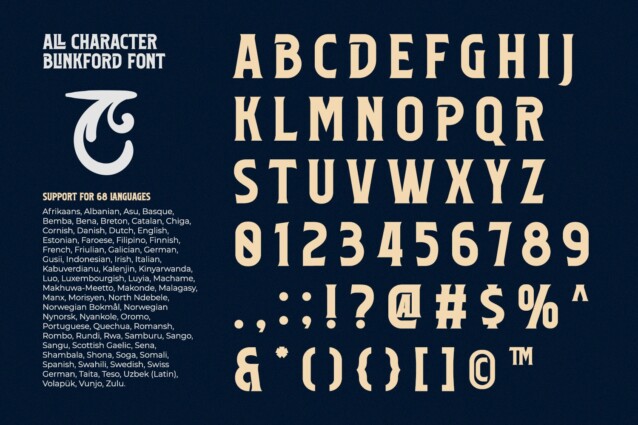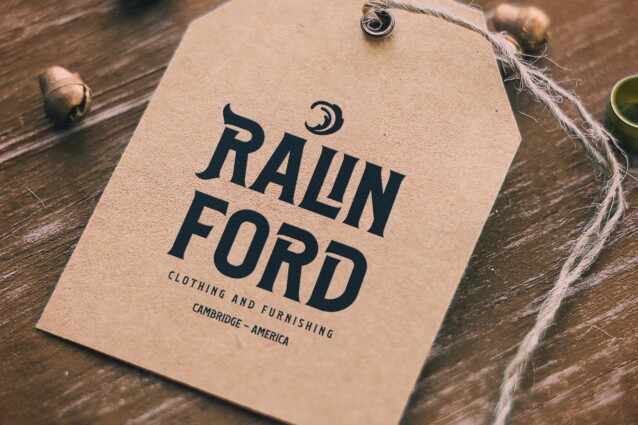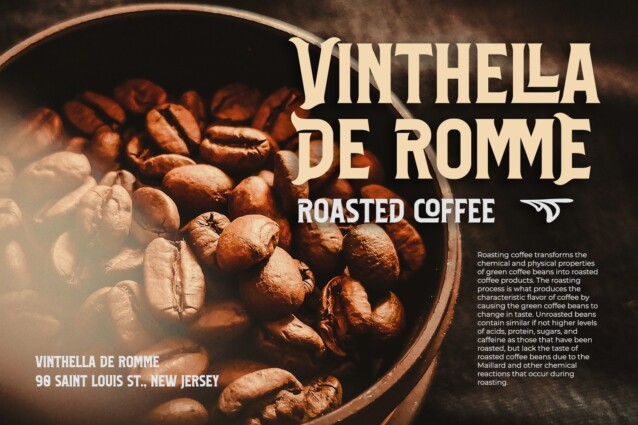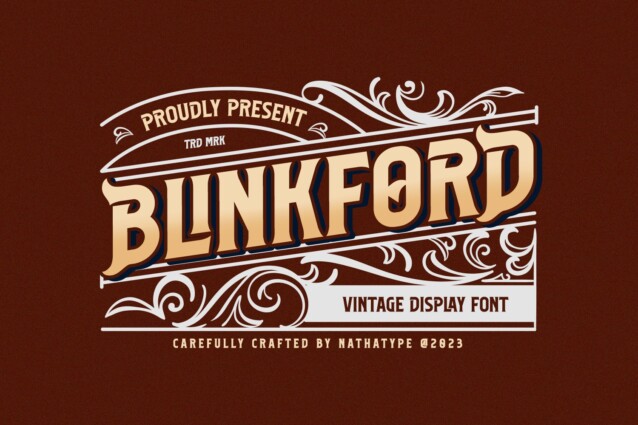
Blinkford Font
Blinkford Font is a sharp-looking serif display typeface created by Din Studio with a little bit of gothic style that gives a mysterious character and horrific traits. With its bold, heavyweight design and generous spacing, Blinkford embodies classic sophistication. Each uppercase letter in Blinkford is a testament to the past, meticulously crafted to exude the essence of vintage style. The characters are bold and robust, evoking a sense of grandeur and prominence that harks back to a bygone era. The generous spacing in this font is designed to give your text room to breathe. This open layout enhances legibility and imparts a sense of spaciousness that is characteristic of vintage typography. As a special bonus, this font includes ornaments.